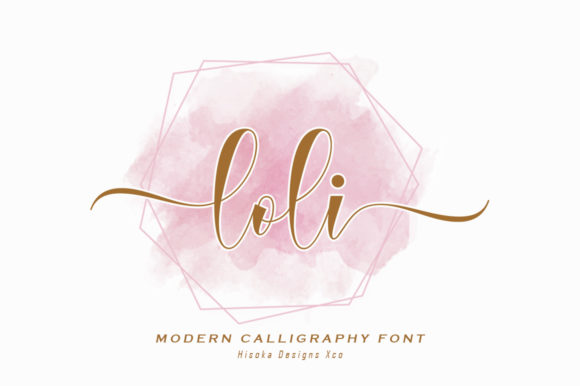
Unleash your creativity with Loli Font, the epitome of elegance and charm in the world of script fonts. This mesmerizing handwritten font, meticulously crafted by Kama Studio, will transform your designs into captivating masterpieces. Experience the allure of Loli's graceful curves and delicate strokes, meticulously designed to evoke a sense of timeless beauty.
Immerse yourself in the world of vinyl lettering with Loli Font, your ultimate companion for creating stunning decals, signs, and personalized projects. Its effortless flow and remarkable legibility make it the perfect choice for those seeking to make a statement. Allow Loli to guide your artistic vision and watch as your designs bloom into vibrant expressions of your creativity.
With Loli Font, discover a font that effortlessly blends modern aesthetics with a touch of vintage charm. Its versatility knows no bounds, seamlessly adapting to a myriad of design styles. Whether you're crafting elegant wedding invitations, creating eye-catching social media graphics, or designing awe-inspiring logos, Loli Font will elevate your projects to new heights of sophistication.
Fall in love with Loli's extensive character set, thoughtfully designed to provide you with a wealth of creative possibilities. Access a treasure trove of swashes, alternates, and ligatures with ease, thanks to its PUA encoding. Unleash your imagination and explore the endless potential of Loli Font, creating designs that captivate and inspire.
Don't settle for ordinary fonts. Embrace the extraordinary with Loli Font, the ultimate choice for discerning designers seeking to make a lasting impact. Its timeless beauty and remarkable versatility will transform your creative journey, allowing you to express your individuality and leave an indelible mark on the world of design.